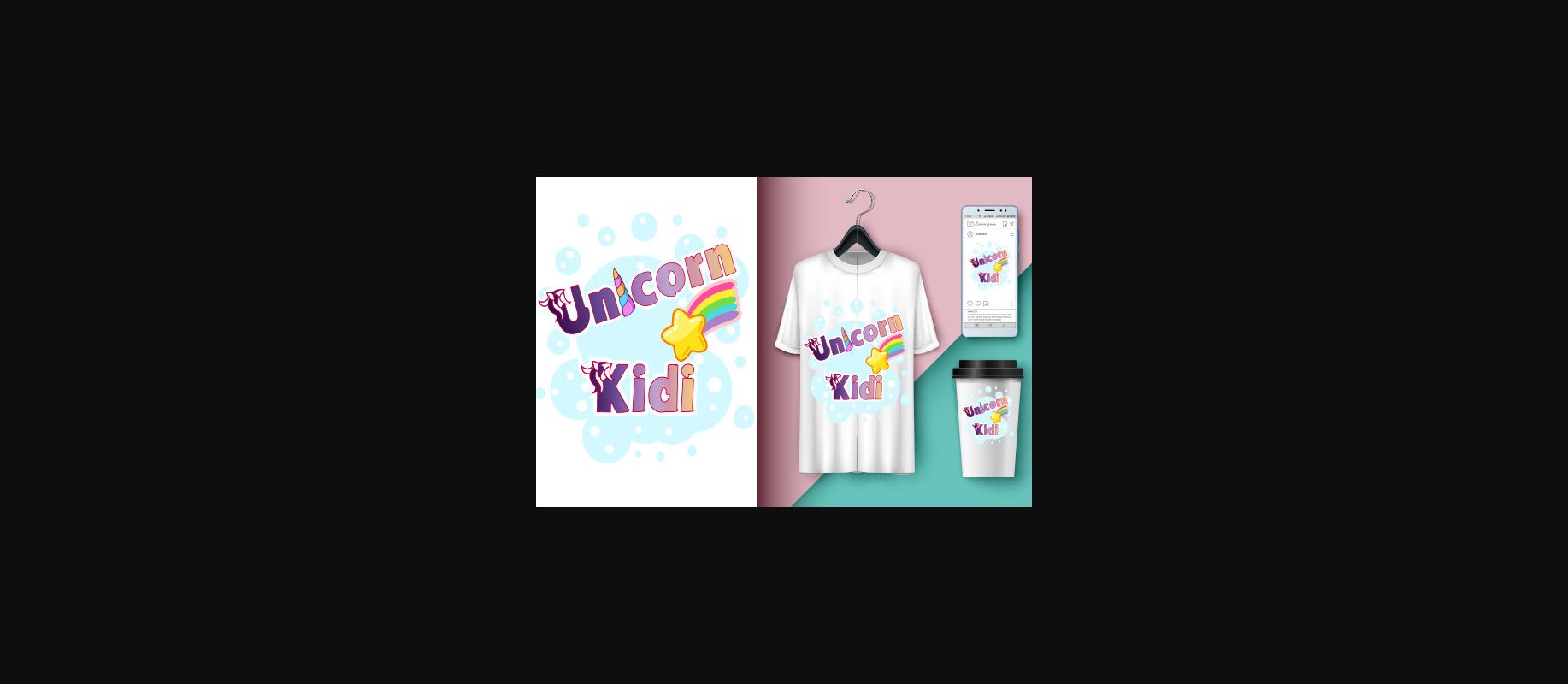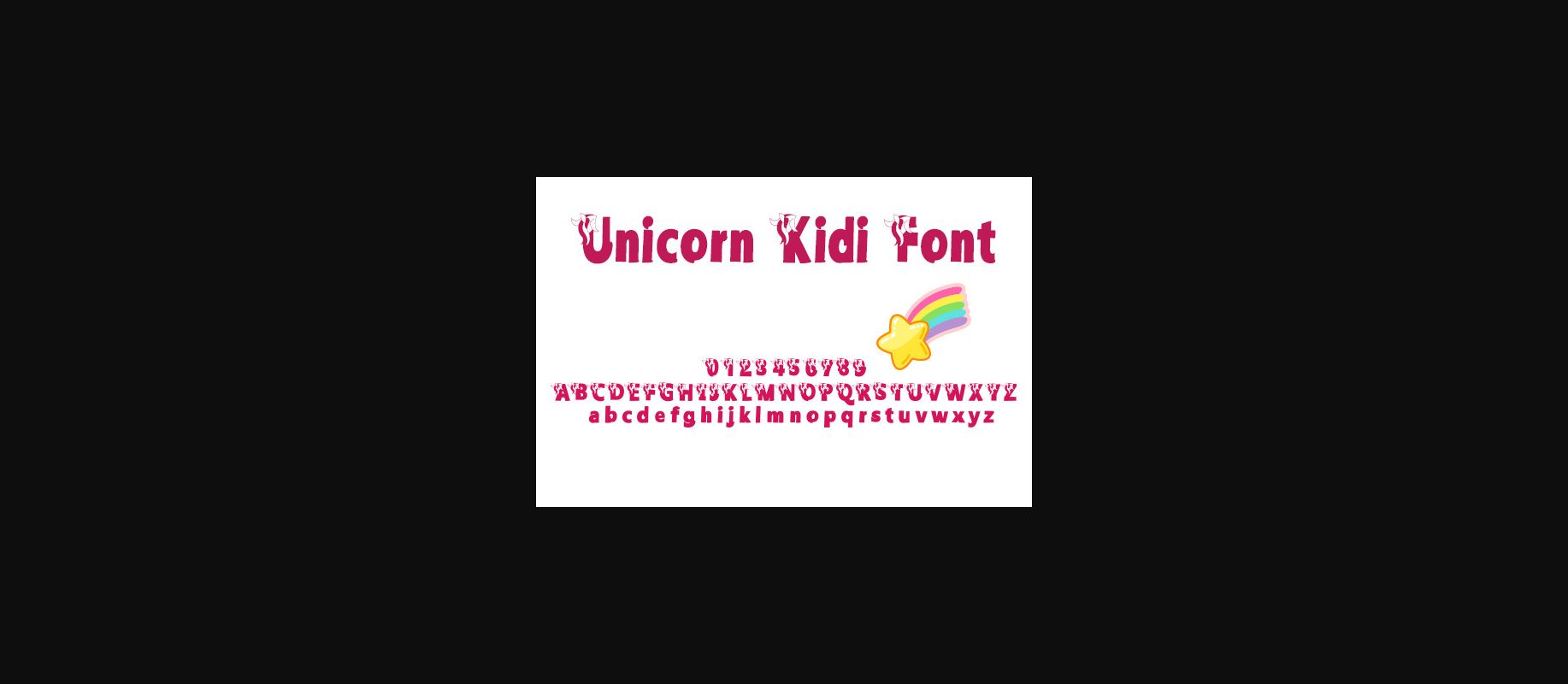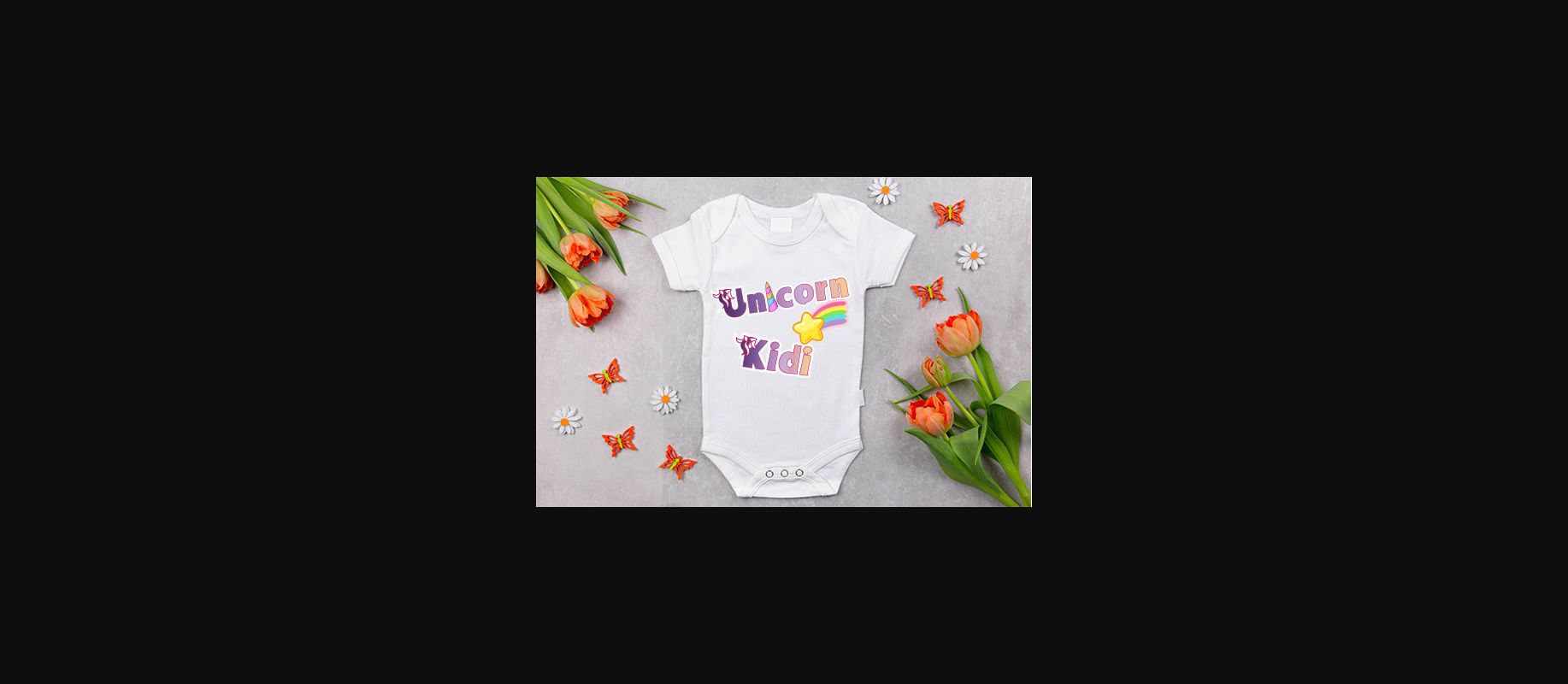
About Unicorn Kidi Font
Unicorn Kidi is a fun, bold yet friendly decorative font. Whether you are using it for cartoon-related designs, children games, quotes, titles, brand names, book covers, posters, or just any creation that requires a trendy touch, this font is a great choice.